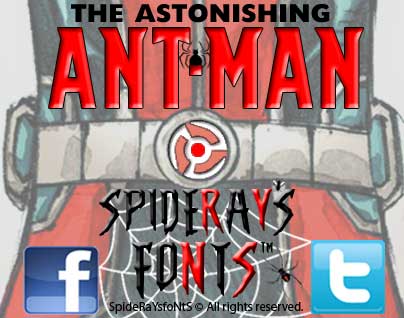
I have been wanting to create a new font based on my old Ant-Man Comics from the 1970's for ages but never got around to it until the end of 2017. So with the latest Ant-Man and the Wasp movie due out in July 2018 here is my personal look back over the last 50 years of this Astonishing Shrinking Avenging Super-Hero. I guess it's about time to use Pym Particles to bypass the Square-cube law of Fan-Fontics.
THE ASTONISHING ANT-MAN